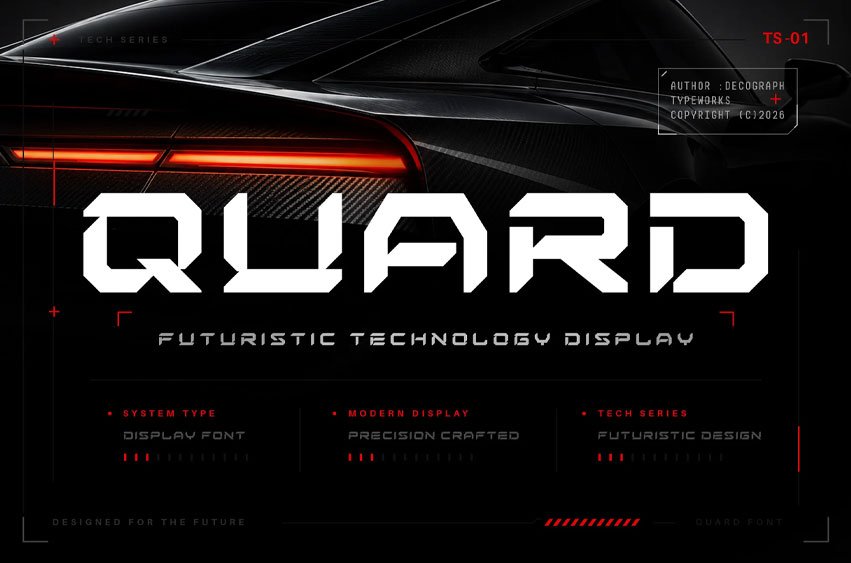
Quard Font
Quard Font is a futuristic technology display font designed with sharp geometric construction, precision-crafted angles, and modern cyber-inspired aesthetics.
Combining bold futuristic forms with clean digital structure, this typeface delivers a powerful high-tech atmosphere perfect for next-generation visual design.